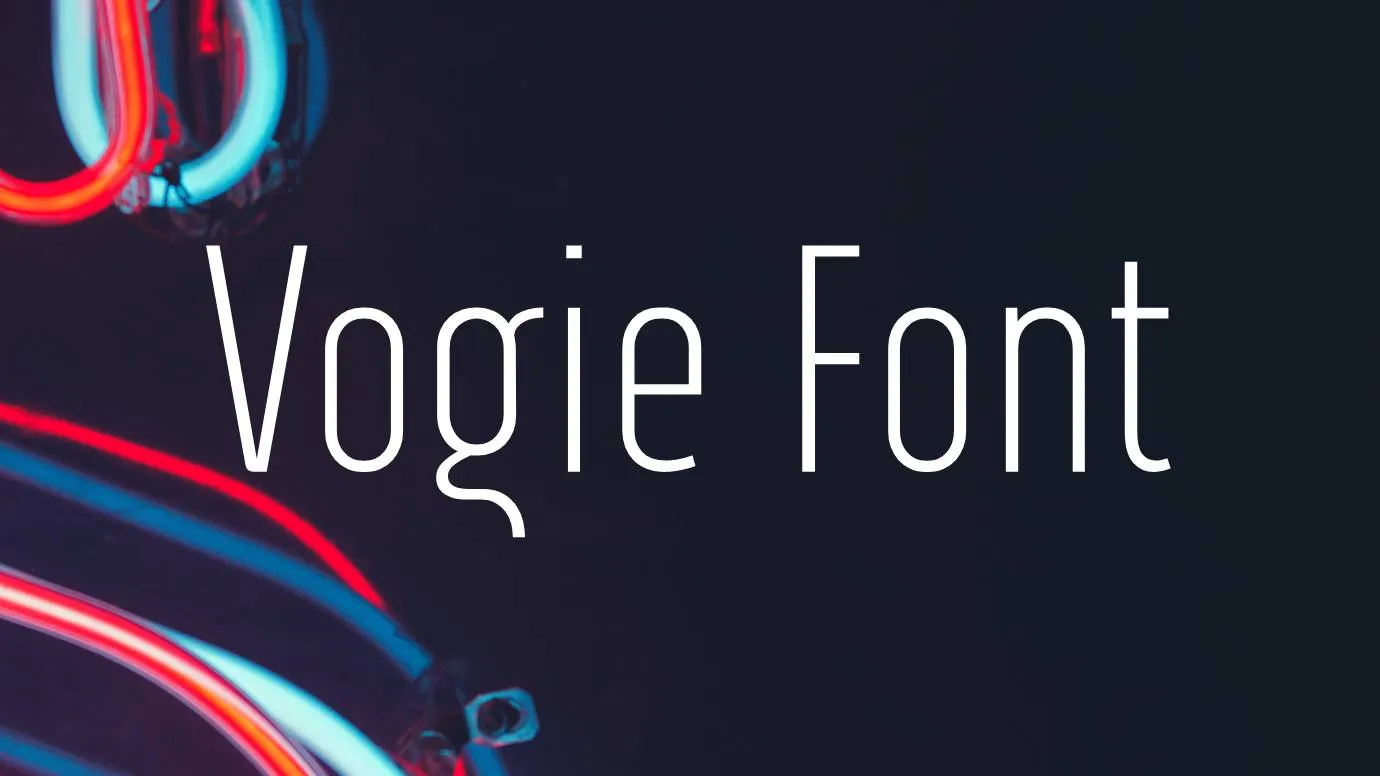
Vogie Font Family is a geometric sans serif typeface that comes in a stylish sans serif typeface. This font was designed by Muhammad Ridha Agusni and shared through 38. lineart. It has bold and rounded corner characters that come with numbers, uppercase letters, and some punctuation marks.
Due to its amazing standard look, it has various helpful uses that are suitable for designers. This font has support a lot of languages that you can use for different designing throughout any country’s project. If it is your desire to make your project more readable and coherent then you can choose the Vogie typeface.
Vogie Font